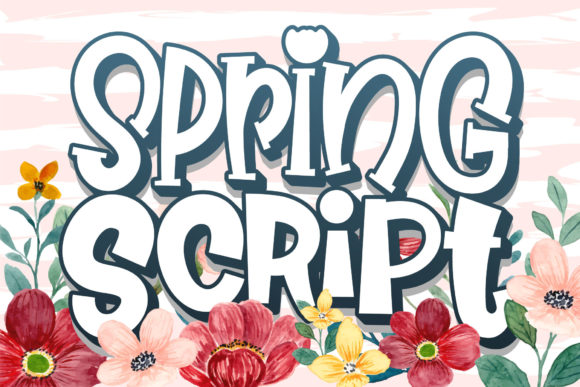
Introducing Spring Script Font by Nobu Collections, the perfect display font for adding a touch of fun and playfulness to your designs. Whether you're designing a cartoon title or a quirky subtitle, Spring Script will bring your creations to life.
With its unique and quirky style, Spring Script is perfect for those looking to add a touch of personality to their designs. Its informal design adds a touch of fun to any project, making it ideal for branding, packaging, social media graphics, and more.
Spring Script's playful curves and bouncy letters make it an excellent choice for children's books, invitations, and greeting cards. Use it to create stunning headlines, quotes, or to add a fun and personal touch to your scrapbooking projects.
The font family boasts a wide range of styles, including regular and bold, giving you the flexibility to create unique designs that stand out. Its versatility and adaptability mean that Spring Script is perfect for a wide range of projects, from product packaging to event invitations.
Spring Script is also easy to read, making it perfect for use in longer text blocks or as a font for online content. Its smooth lines and easy-to-read letters make it an excellent choice for websites, e-books, and other digital media.
So, if you're looking for a font that's as fun and playful as it is functional, look no further than Spring Script by Nobu Collections. With its unique style, versatility, and ease of use, Spring Script is sure to become a favorite among designers and creatives alike.